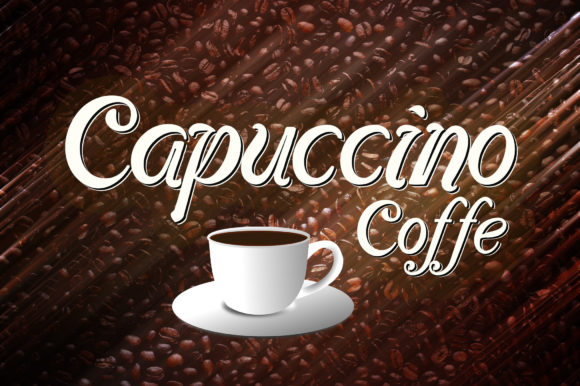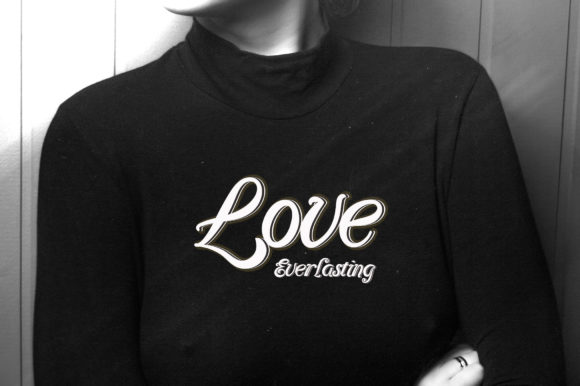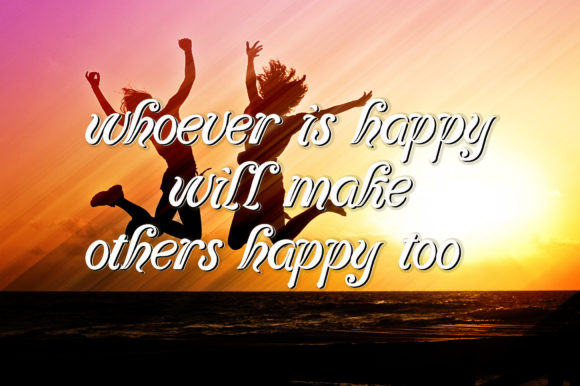
Unleash Your Creativity with Black Forest Font: A Delicate and Fashionable Script Font
Are you a designer or crafter looking for a font that can elevate your branding projects to the next level? Look no further than the Black Forest Font. This delicate and fashionable script font is perfect for a variety of applications, from logos and t-shirt printing to creative products and more. In this article, we’ll take a closer look at the Black Forest Font and explore its features, benefits, and uses.
What is Black Forest Font?
Black Forest Font is a beautifully crafted script font that exudes elegance and sophistication. Its delicate lines and curves make it perfect for designs that require a touch of refinement and luxury. The font is highly versatile and can be used in a range of contexts, from formal to informal, making it a great addition to any designer’s toolkit.
Key Features of Black Forest Font
So, what makes Black Forest Font so special? Here are some of its key features:
- Delicate and Fashionable: Black Forest Font is a script font that is both delicate and fashionable. Its intricate lines and curves make it perfect for designs that require a touch of elegance and sophistication.
- Highly Versatile: This font is highly versatile and can be used in a range of contexts, from formal to informal. It’s perfect for designs that require a touch of refinement and luxury.
- Easy to Read: Despite its delicate nature, Black Forest Font is easy to read, making it perfect for body text and headlines.
- Perfect for Branding: Black Forest Font is perfect for branding projects, including logos, t-shirt printing, and creative products.
Benefits of Using Black Forest Font
So, why should you choose Black Forest Font for your next design project? Here are some of the benefits of using this beautiful script font:
- Elegance and Sophistication: Black Forest Font adds a touch of elegance and sophistication to any design project.
- Unique and Creative: This font is perfect for designers and crafters who want to create unique and creative designs that stand out from the crowd.
- Time-Saving: Black Forest Font is easy to use and can save you time and effort in your design projects.
- High-Quality: This font is of high quality, making it perfect for professional design projects.
Uses of Black Forest Font
So, what can you use Black Forest Font for? Here are some ideas:
- Logo Design: Black Forest Font is perfect for logo design, especially for brands that want to convey elegance and sophistication.
- T-Shirt Printing: This font is great for t-shirt printing, especially for designs that require a touch of refinement and luxury.
- Creative Products: Black Forest Font is perfect for creative products, such as stationery, invitations, and more.
- Branding: This font is perfect for branding projects, including business cards, brochures, and more.
In conclusion, Black Forest Font is a delicate and fashionable script font that is perfect for designers and crafters who want to create elegant and sophisticated designs. Its highly versatile nature makes it perfect for a range of contexts, from formal to informal. With its ease of use, high-quality design, and unique features, Black Forest Font is a great addition to any designer’s toolkit.